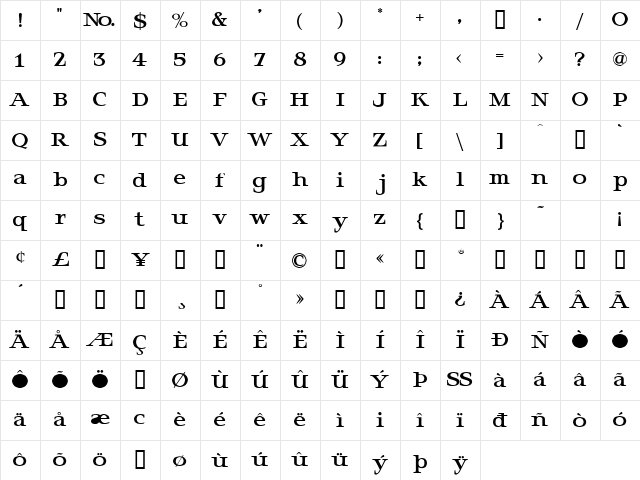
LHF Farango BETA Regular
Design Context for LHF Farango BETA
LHF Farango BETA is a composed and adaptable typeface that performs quietly and consistently across a wide range of design contexts.